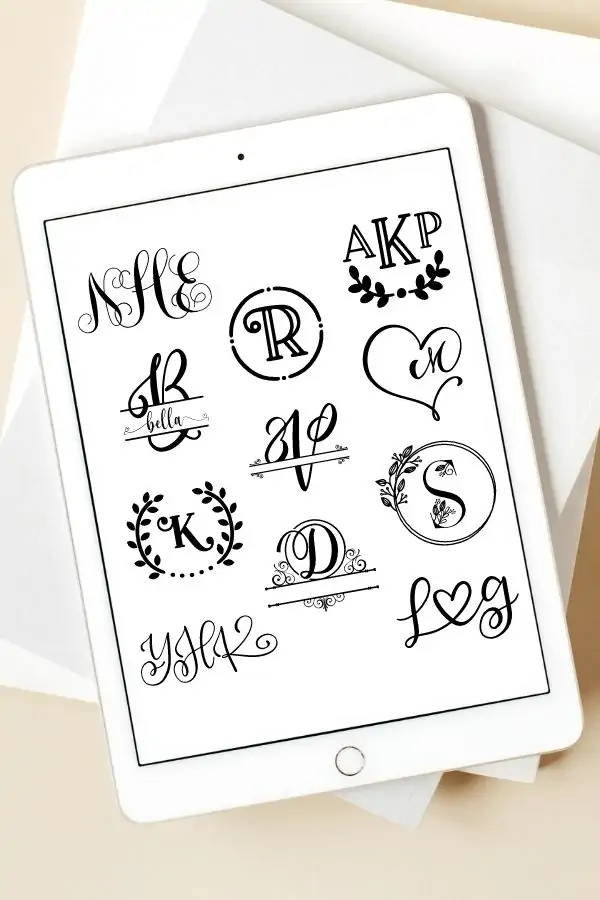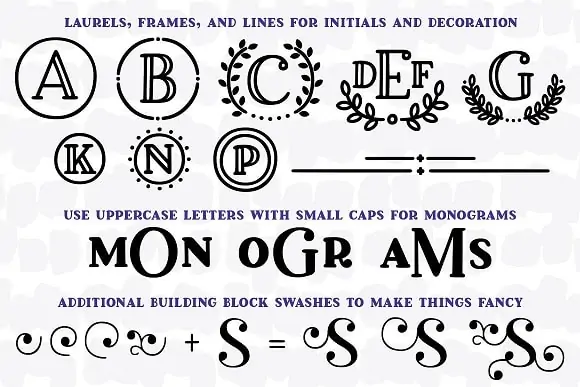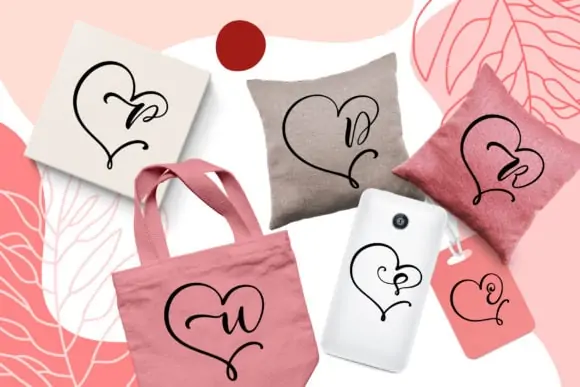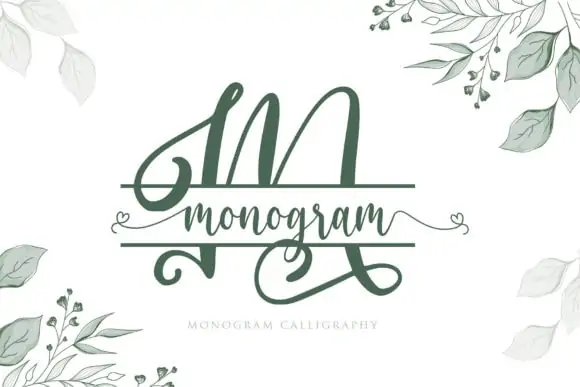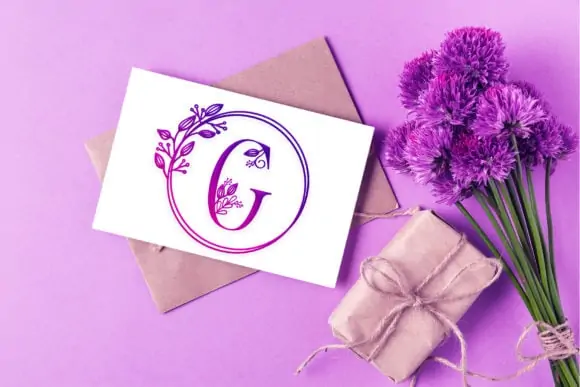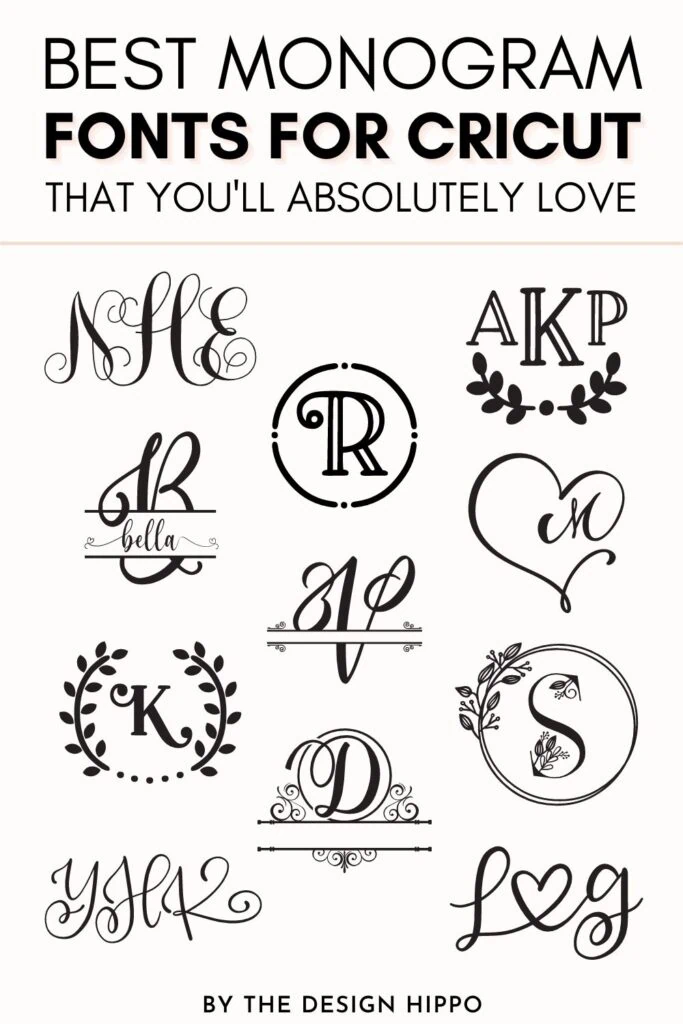
Do you want to know about monogram fonts for Cricut? You will love downloading the best monogram fonts, including split-letters, circle, interlocking, and floral vine fonts. Create SVG designs for your Cricut Maker, Joy, or Explore machines to personalize tumblers, mugs, ornaments, and more!
When creating personalized crafts, choosing a font that keeps the occasion and recipient in mind is important. That’s why you will love picking your next favorite monogram font from this list.
A monogram font can turn a DIY craft into something truly worth remembering.
I cover everything from a circle and split monogram to interlocking and fancy letters in this post. You’ll find wedding-style fonts and more to create farmhouse wood signs.
Wedding, Birthday, Bridal Shower, or Graduation, no matter the occasion, these monogram fonts for Cricut will take your crafting game to the next level!
Best Monogram Fonts for Cricut
1. Breakfast Pastry
Best Overall Monogram Font for Cricut
Breakfast Pastry is a versatile font perfect for creating unique monograms. It’s my favorite farmhouse font for creating rustic crafts!
Use this bold serif font to make traditional, stacked, and block monograms. Or add rustic charm to your crafts by using the wreath monogram letters.
2. Heart Monogram Font
Most Popular Cricut Monogram Font
The heart frame monogram font is the perfect font to create fun monograms. The swirly letters in the form of hearts are so cute!
Use this font to make personalized gifts for weddings, anniversaries, bridal showers, and Valentine’s Day.
3. Monogram Font
Best Split Monogram Font
Something that never goes out of style for monograms is the split monogram. But this split monogram font takes it up a notch!
The font features elegant script letters to highlight initials beautifully. Combine the split monogram with the calligraphy font to write a name with beginning and ending tails.
Perfect for creating cute designs and personalizing mugs, pillows, wedding decor, and gifts.
4. Monogram Handrawn Leaves
Best Decorative Monogram Font for Cricut
The monogram handrawn leaves font features floral monogram letters surrounded by a beautiful wreath frame.
This decorative monogram font is my go-to for creating farmhouse-style personalized crafts.
The font adds a rustic touch with its botanical-themed elements. Perfect for creating wooden signs, wedding decor, and Christmas gifts.
5. Monogram Classy
Best Elegant Monogram Font for Cricut
Want to add an elegant touch to your Cricut DIY crafts? The Monogram Classy font got you covered!
The split monogram font features thick curly letters that are easy to cut. The font is perfect for making wedding and holiday decor, gifts, and invitations.
6. Circle Monogram Font
Best Circle Monogram Font for Cricut
No matter what the occasion, nothing beats a classy circle monogram. Make three-letter monograms quickly and easily with this font!
The left, right, and center letters come in three separate font files, making it super easy to make a circle monogram. You can also create circle monograms with borders using the bonus 35+ gorgeous square and round frames.
This Circle Monogram Font is perfect for just about every crafting project – family name signs, wedding decor, Christmas gifts, etc.
7. Interlocking Monogram Font
Best Intertwined Monogram Font for Cricut
Your search for the best vine monogram font for Cricut ends here! It wasn’t easy to find this font, but once I did, I became obsessed.
The Intertwined Monogram She Font is a fancy script monogram font with interwoven letters.
Monograms made from this font look amazing on almost every Cricut DIY craft imaginable – wood signs, shirts, mugs, wedding decor and gifts, Christmas presents, and more.
8. Couples Monogram
Best Monogram Font for Wedding Projects
Take personalizing wedding crafts to a new level with the stunning Couples Monogram Cricut font. Use the font to create a beautiful monogram featuring the initials of the couple, joined by a heart.
The elegant yet playful letters are perfect for creating a gorgeous monogram for a wedding. You can customize wedding signs, invitations, bridesmaids’ t-shirts, thank you cards, stickers, etc.
9. Doodlegram
Best Script Monogram Font
Doodlegram is a whimsical script monogram font. The swirly letters are elegant with a playful touch, making them a perfect choice for creating fun crafts.